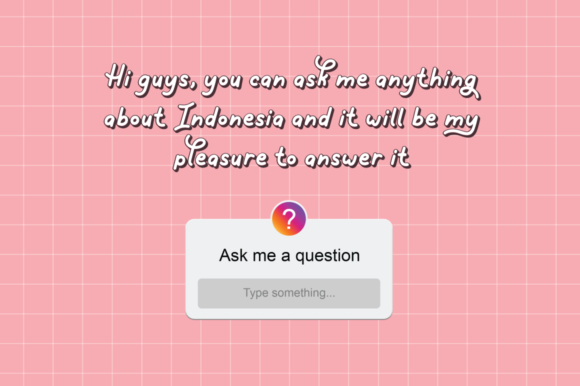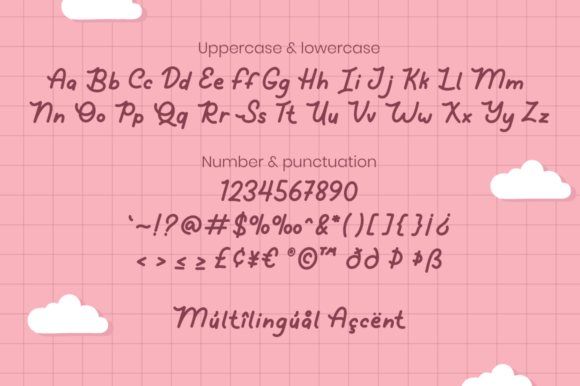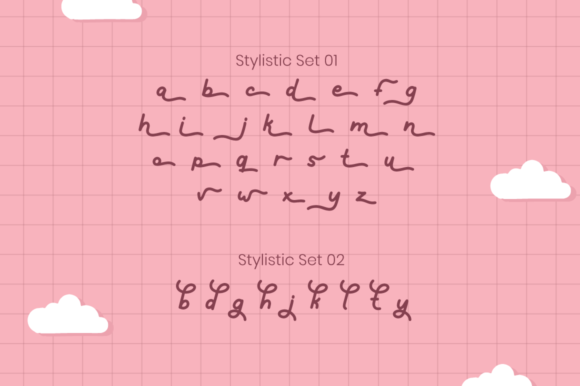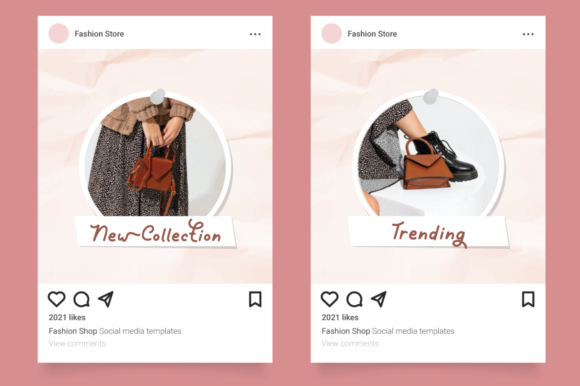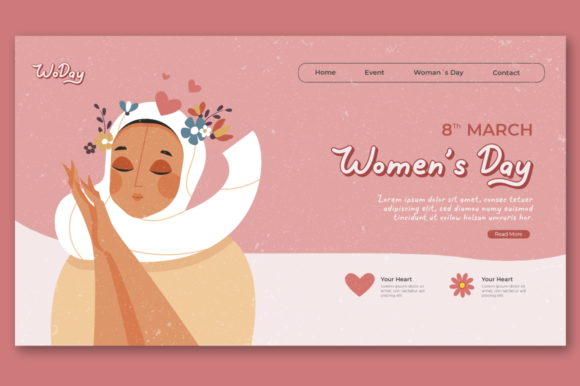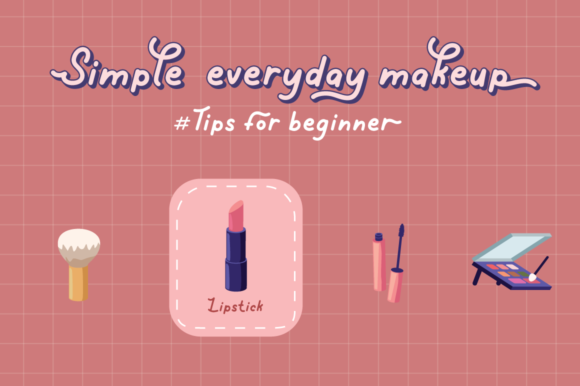
Lovely Sonia Font – Free Download
Introduction to Lovely Sonia Font
Lovely Sonia is a lovely handwritten font featuring a unique, stylish, and modern style.
It is perfect for wedding promotion, branding, logo, invitation, stationery, social media post, product packaging, merchandise, etc .
Key Features of Lovely Sonia Font